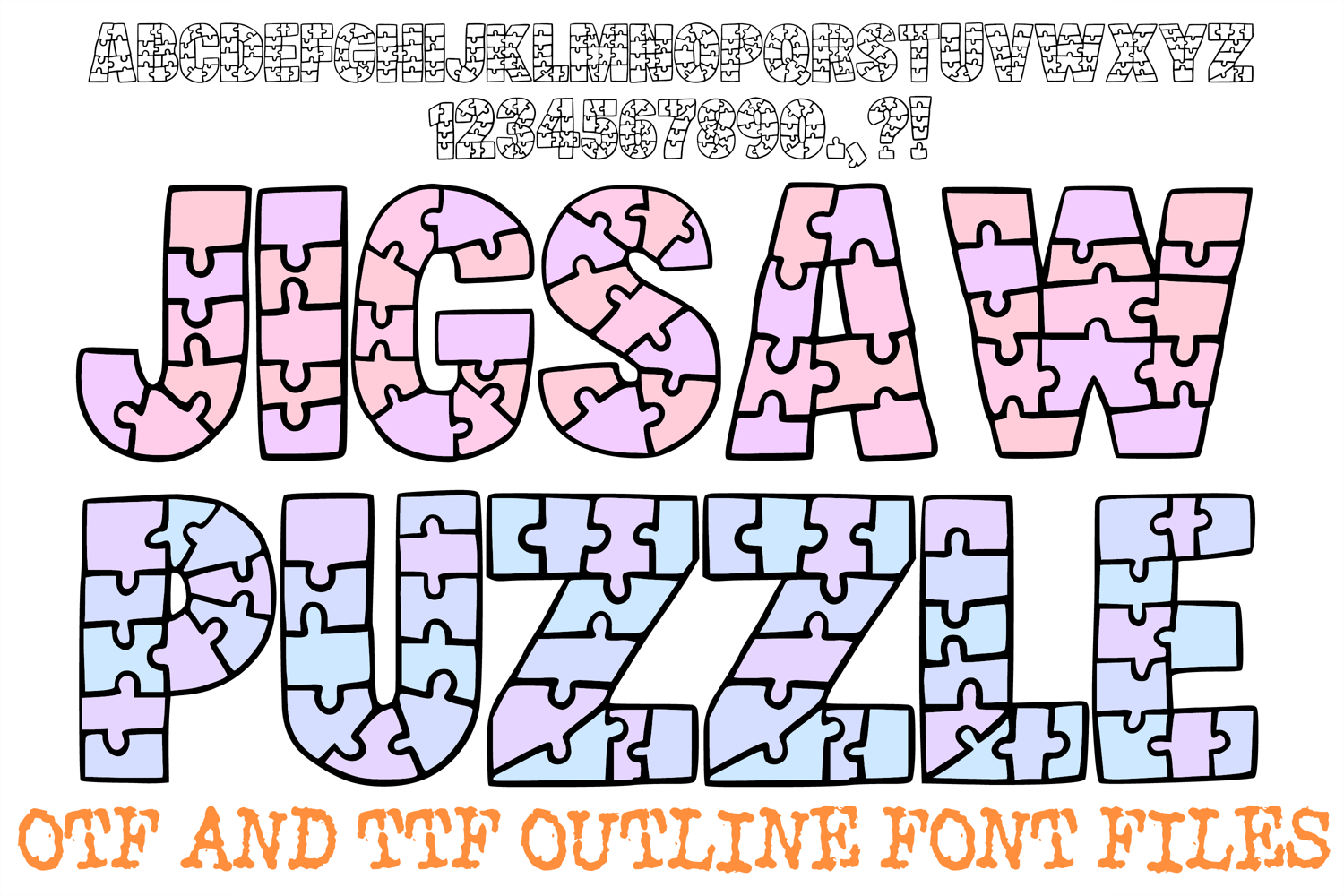
Jigsaw Puzzle Alphabet Lettering Font Gaming ABC OTF
Piece together your next masterwork with the wonderfully playful and engaging look of the Jigsaw Puzzle Font. This clever display typeface features bold, chunky letterforms uniquely constructed from interlocking puzzle pieces. Complete with standard tabs and blanks built directly into the anatomy of each character, this hand-drawn alphabet captures a fun, game-night aesthetic. It serves as an outstanding typography choice for layouts that require an eye-catching, interactive, and problem-solving theme.
Delivered as installable OTF and TTF font files, this detailed outline structure offers brilliant creative versatility. It provides a fantastic resource for a designer who wants to apply multi-colored pastel gradients, alternate distinct shading on adjacent pieces, or experiment with bold, contrasting background elements. The clean, smooth linework scales beautifully across all major design platforms, ensuring crisp, professional results for digital creations and physical print media alike.